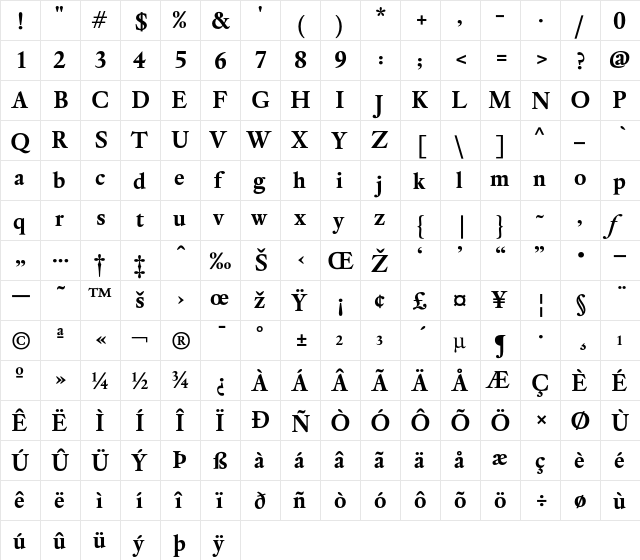
DTLElzevirT Bold Font Preview
DTLElzevirT Bold
DTLElzevirT Bold Font Details
Design Context for DTLElzevirT Typeface
DTLElzevirT offers clean, dependable letterforms without strong stylistic allegiance, making it a practical choice for designers who need flexibility. Its bold stroke weight gives it real presence on the page.